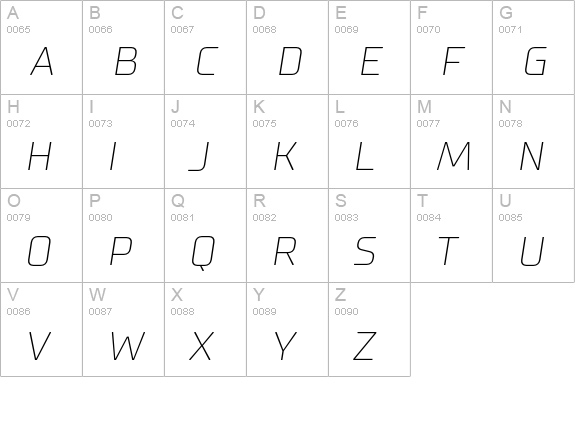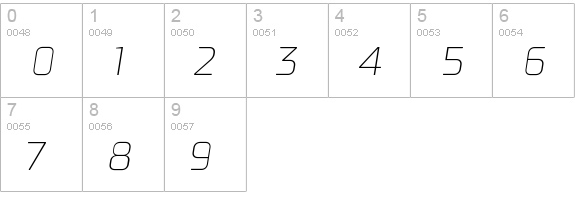
Supermolot Thin Italic Font Details
Supermolot Thin Italic is a delicate, low-contrast, italic variant in the Supermolot typeface family \xE2\x80\x94 well suited to fashion editorial, minimal branding, and high-contrast display.
Supermolot Thin Italic font is a modern and sleek typeface that exudes elegance and sophistication. Its thin and italic design adds a touch of finesse to any creative project, making it perfect for use in branding, editorial design, and more. The Supermolot Thin Italic font features a unique combination of sharp angles and subtle curves, creating a harmonious balance that is visually appealing. One of the best things about Supermolot Thin Italic font is that it is completely free to download. You can get your hands on this stylish typeface at FontsMarket.com, where you can easily access and use it for your personal and commercial projects. With its versatility and contemporary style, Supermolot Thin Italic font is sure to elevate your designs and leave a lasting impression on your audience.